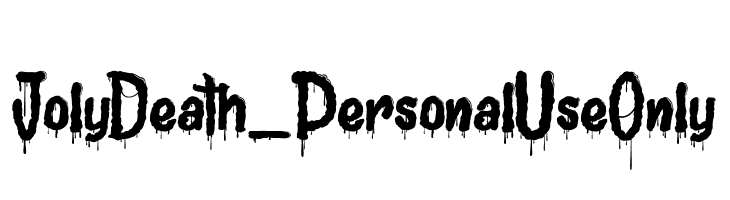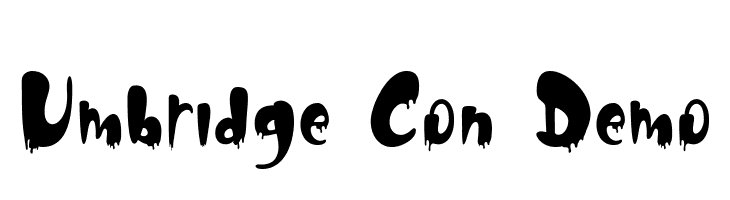
• Monster Blood
A dripping, horror-themed font with a bold, eerie style.
• Bloody Terror
A bold, dripping font ideal for horror themes and Halloween designs.
• Death Party - Personal Use
A bold, dripping font with a horror-themed aesthetic.
• Joly Death_PersonalUseOnly
A bold, dripping font with a grungy, hand-drawn style.
• RED Peppers
A bold, decorative font with a distressed, dripping effect.
• Urban Heroes
A bold, graffiti-style font with a dripping effect, perfect for urban-themed designs.
• Umbridge Con Demo
A bold, dripping font with a playful and eerie style.
• Skeleton Blood
A bold, dripping font perfect for horror or Halloween themes.
• SquizersMarkerDemo
A graffiti-inspired font with a dripping effect and bold, cursive-like characters.
• Scary Vampire
A spooky, dripping font perfect for horror themes.